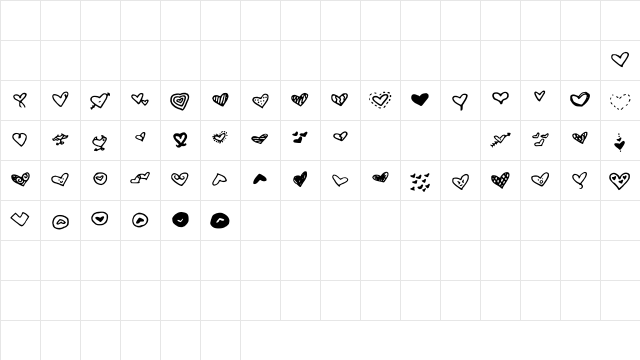
MWHeart Medium Free Font
MWHeart Medium
Complete MWHeart Medium glyph index. Displaying only characters natively supported by MWHeart Medium font.
Design Context for MWHeart
MWHeart is a composed and adaptable typeface that performs quietly and consistently across a wide range of design contexts.